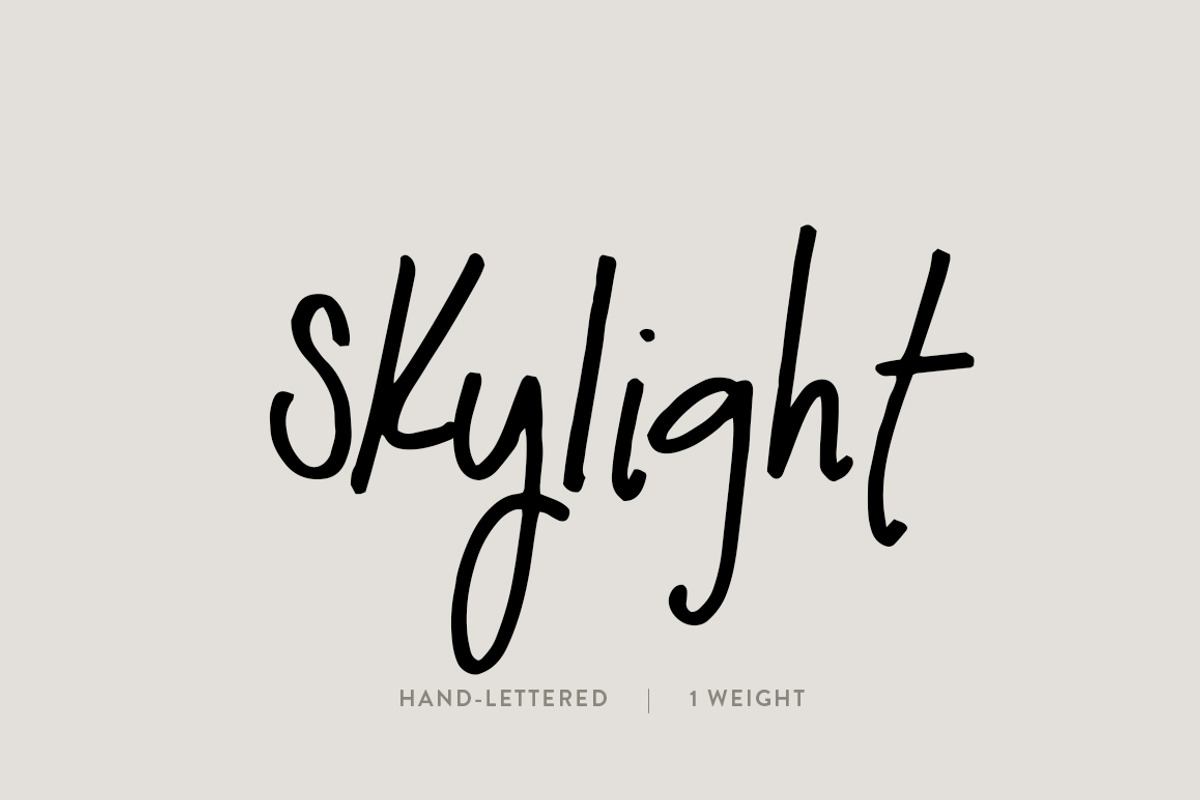
Skylight: A Hand-Lettered Font Free Download
Skylight: A Hand-Lettered Font Free Download is a charming and whimsical typeface that captures the beauty of hand-drawn lettering. With its smooth curves and artistic flair, Skylight is perfect for wedding stationery, product packaging, inspirational quotes, blog headers, and any project that calls for a personal, handcrafted touch.
This font exudes warmth and creativity, making it ideal for designers who want to convey authenticity and emotion. Its balanced, flowing letterforms offer both style and readability, working beautifully in both print and digital formats.